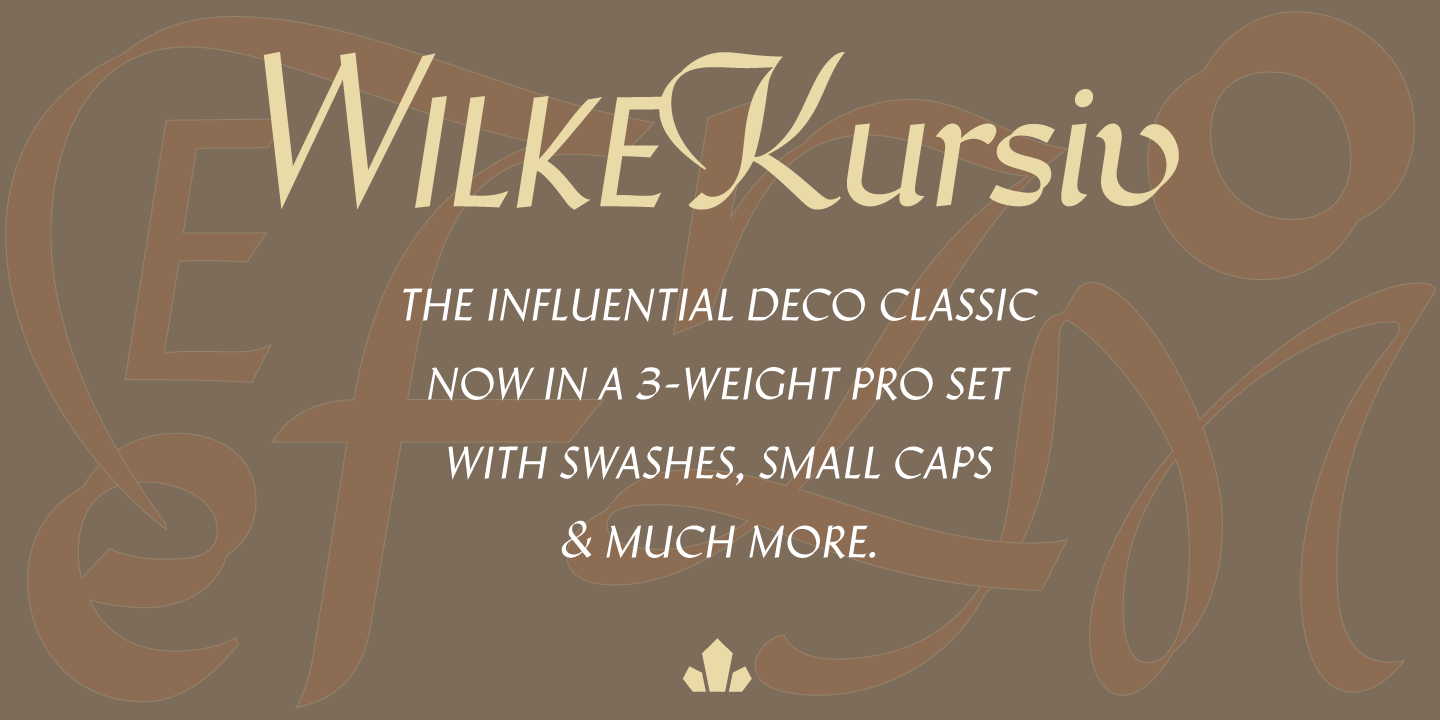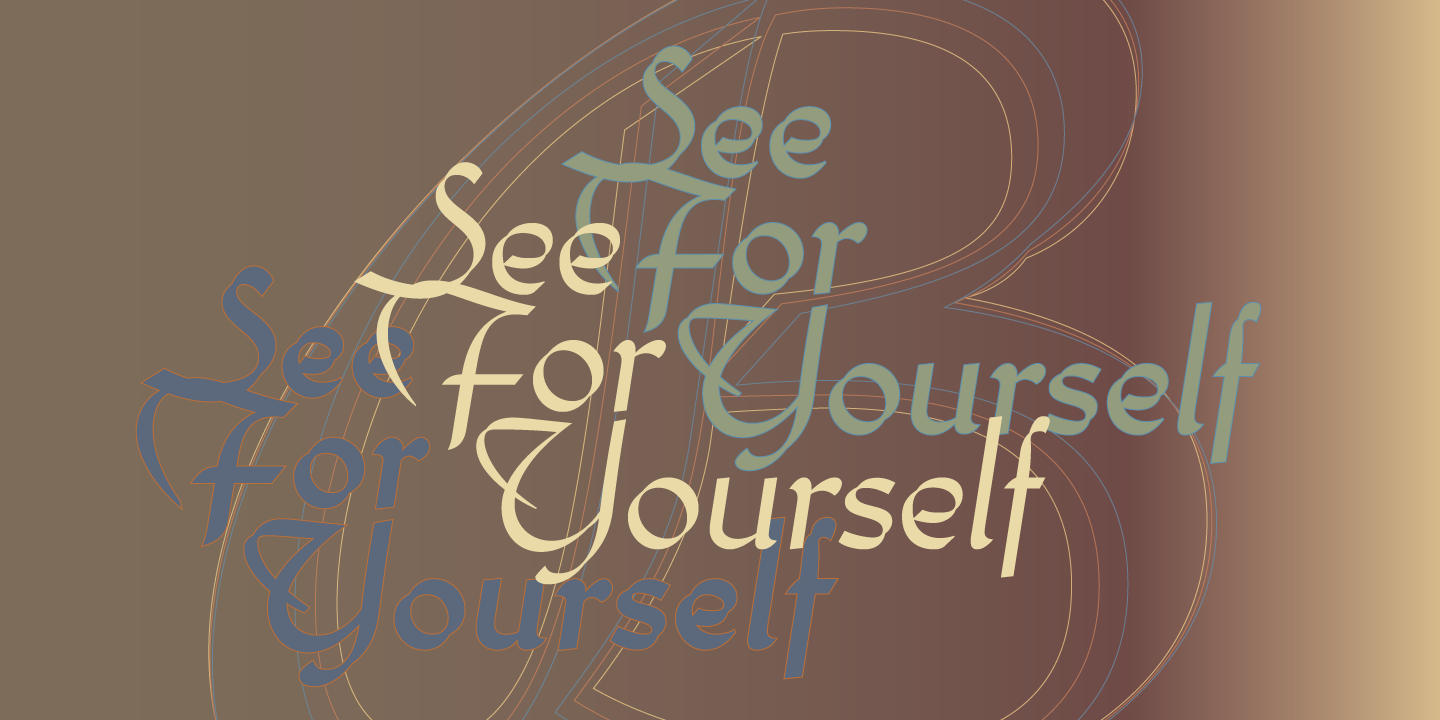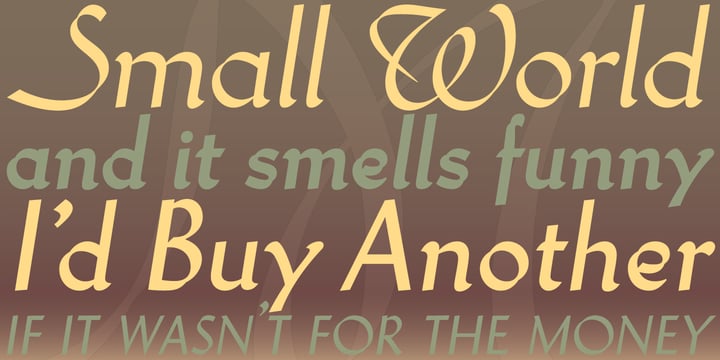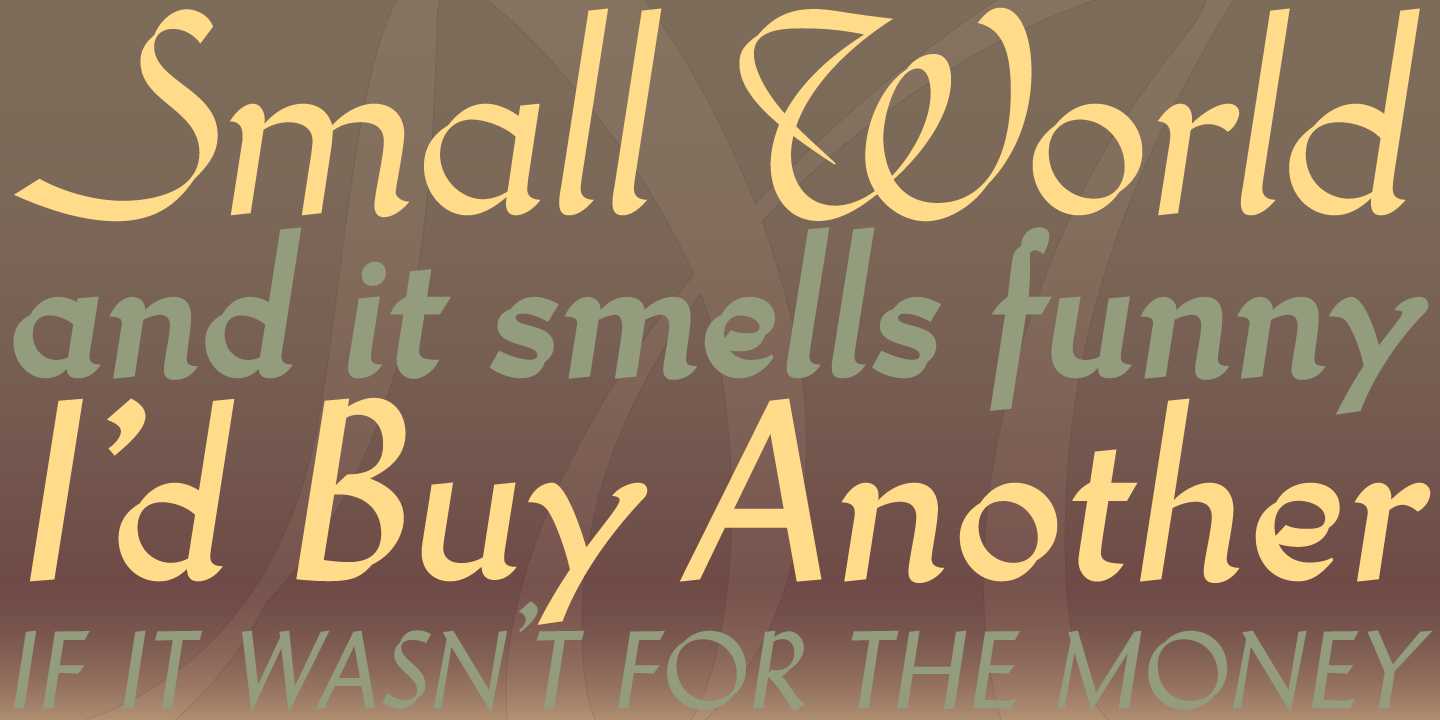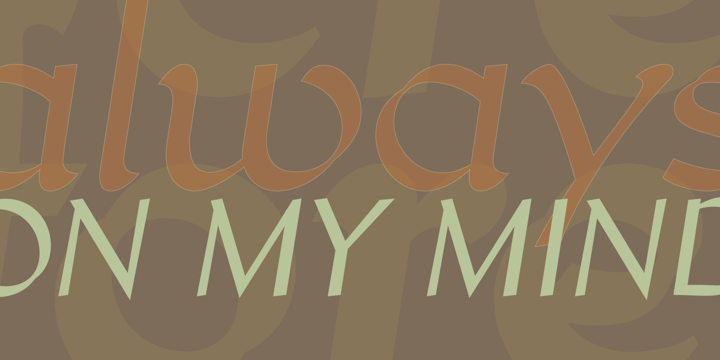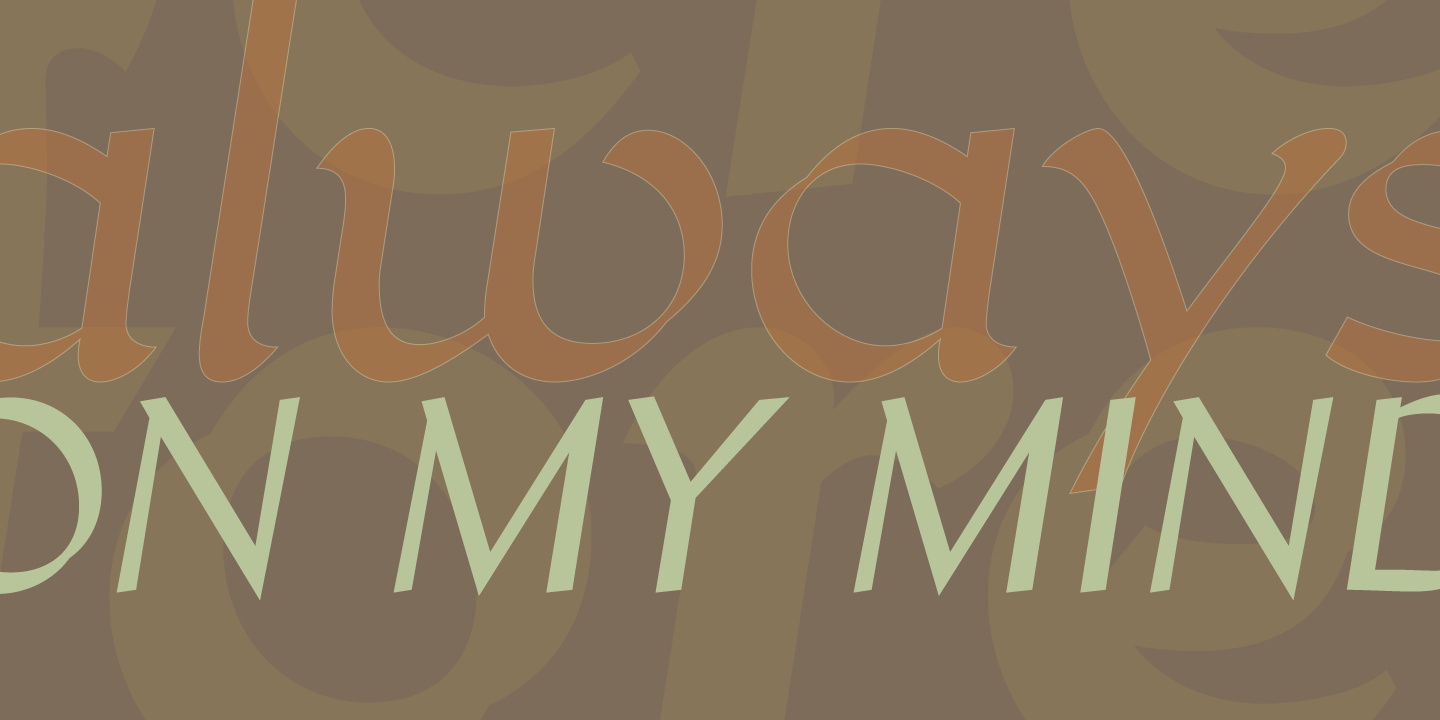
Martin Wilke was born in 1903 in Berlin, went to school in Stettin and Stargard in Pommern, studied handcrafts and fine arts for two years in Stettin and spent another two years attending the classes of Professor Emil Orlik at the State Museum of Fine Arts in Berlin.
Wilke was initially interested in painting, drawing, and typeface design, but his tendency toward typefaces gradually overshadowed the others. Inflation eventually made further study impossible for him. He showed his modest collection of typefaces to Wilhelm H. Deffke, who studied them closely and said, “Look at how you press into the paper...” He had apparently noticed the determination behind Wilke’s efforts. Wilke worked for and with him for two years, and after a year-long assistent position in the studio of Prof. O.H.W. Hadanks, returned for another three years.
In the middle of the 1920s, Wilke designed a script typeface for the headlines of a series of Cadillac advertisements which attracted the attention of the Wilhelm Woellmers typeface foundry. He added the final characters and the Wilke™-Kursiv was born, now known as Ambassador from Photo Lettering Inc. A little later he worked on the design of Muratti advertisements. The script typeface used for the top quality Ariston cigarette, “Ariston, Germany’s most distinguished, recognized best cigarette”, was produced in three weights, and it seemed to make sense to name the typeface Ariston. Before 1939, Wilke also finished the brush typeface Caprice and broad-tipped pen typeface Diskus. After 1945 came the brush typeface Palette, the script typeface Piccadilly, the broad-tipped pen typeface , the sans serif Essentia, the decorative typefaces Moira and Halftone and finally Konzept, written with a felt-tipped pen. The was designed in 1988 and is a transitional serif typeface available in six weights, including small caps for the regular weight.
Martin Wilke died 1993.